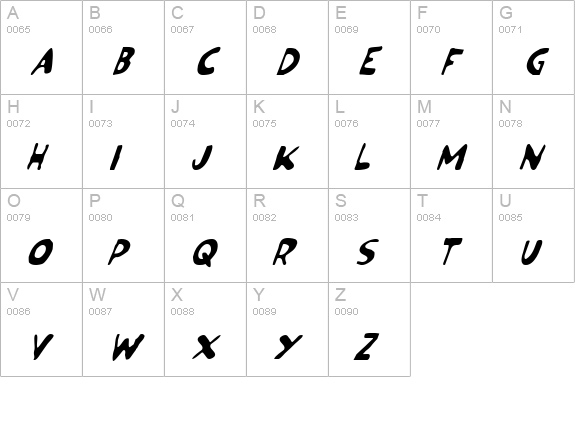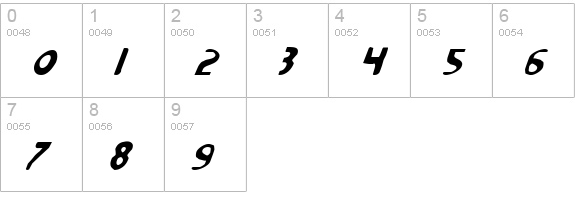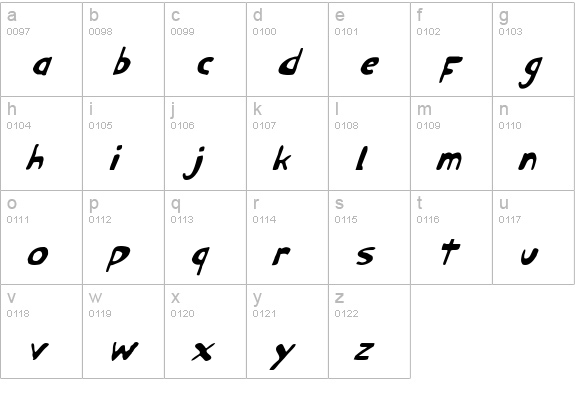
Ozymandias Italic is a distinctive, italic variant in the Ozymandias typeface family \xE2\x80\x94 well suited to design and typography projects.
Ozymandias Italic font exudes a sense of elegance and sophistication with its sleek and stylish appearance. The italicized design adds a touch of flair to any project, making it perfect for creating eye-catching headings or emphasizing important text. The smooth curves and sharp angles of this font give it a modern and contemporary feel, making it a versatile choice for a wide range of design projects. What's even better is that Ozymandias Italic font is available for free download at FontsMarket.com. So, whether you're a professional designer looking to add a new font to your collection or a hobbyist seeking to elevate your creative projects, Ozymandias Italic font is a fantastic choice that won't cost you a penny. Download it now and start incorporating this stylish font into your designs today!